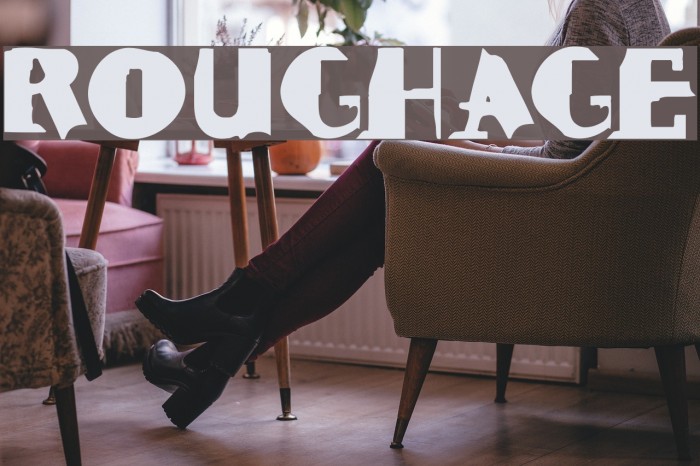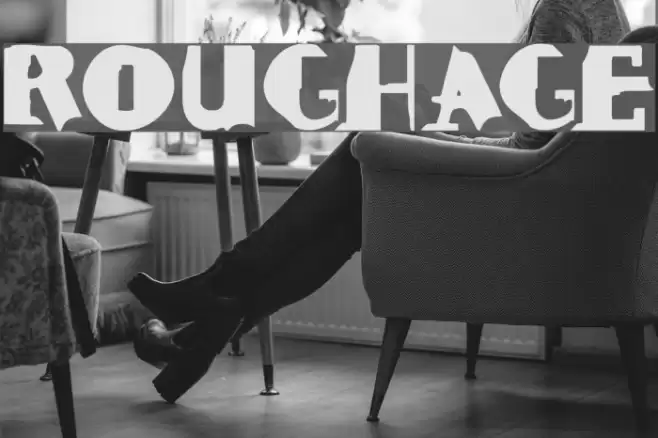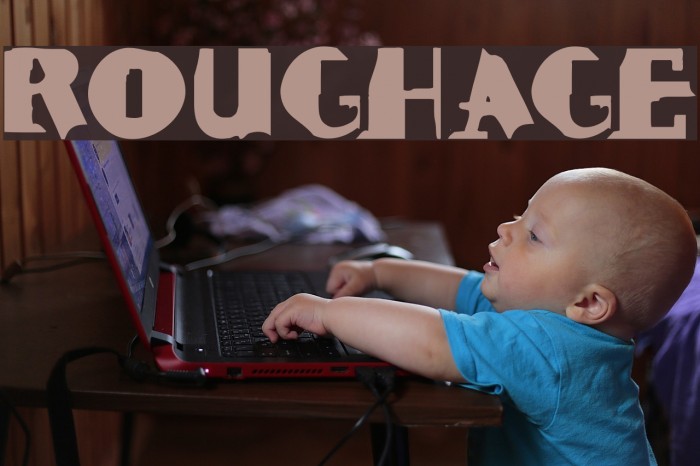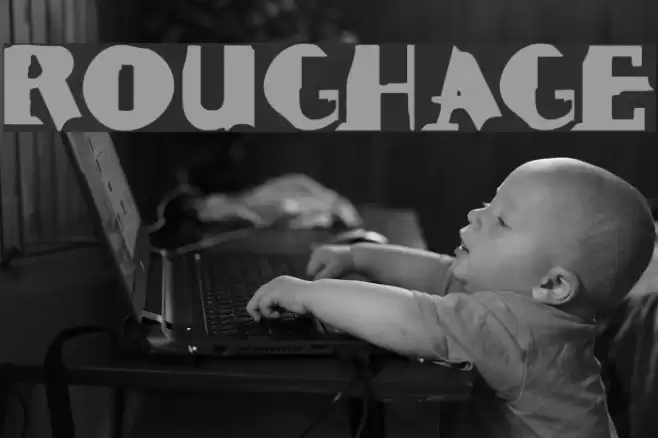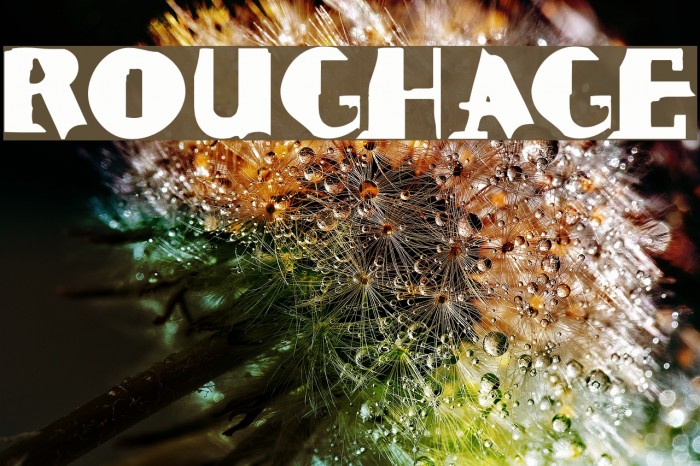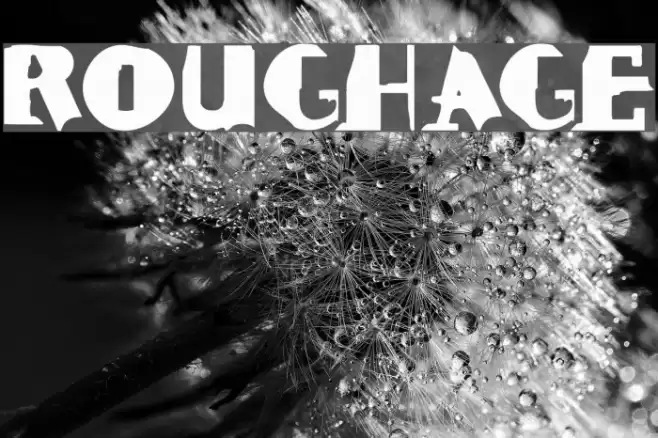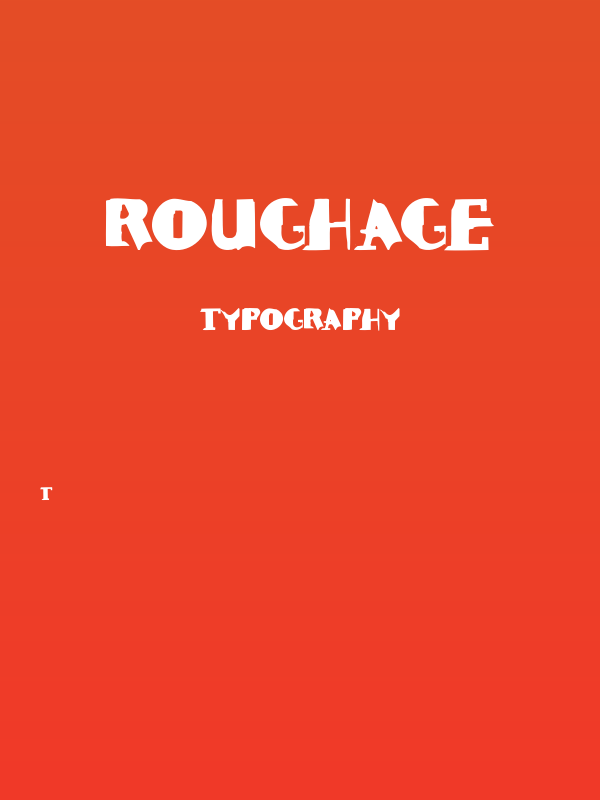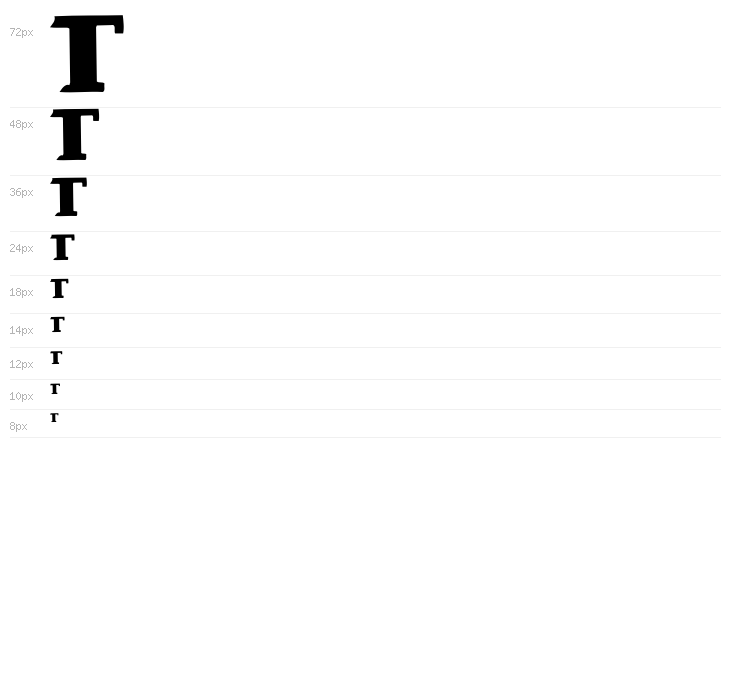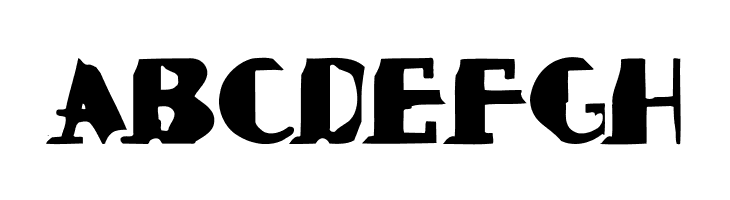
ROUGHAGE Font
ROUGHAGE Description
This font features a bold and striking design with a distinctly rough and jagged appearance. The characters are heavily stylized, with sharp edges and irregular shapes that give it a unique, edgy look. The uppercase letters are particularly prominent, with a strong presence that commands attention. The overall aesthetic is reminiscent of a rugged, distressed style, making it ideal for projects that require a bold and unconventional typeface. The font's distinctive character shapes and uneven lines contribute to its dynamic and energetic feel.
| Proposed Projects | Ideal for posters, album covers, branding for edgy or alternative products, and any design requiring a bold statement. |